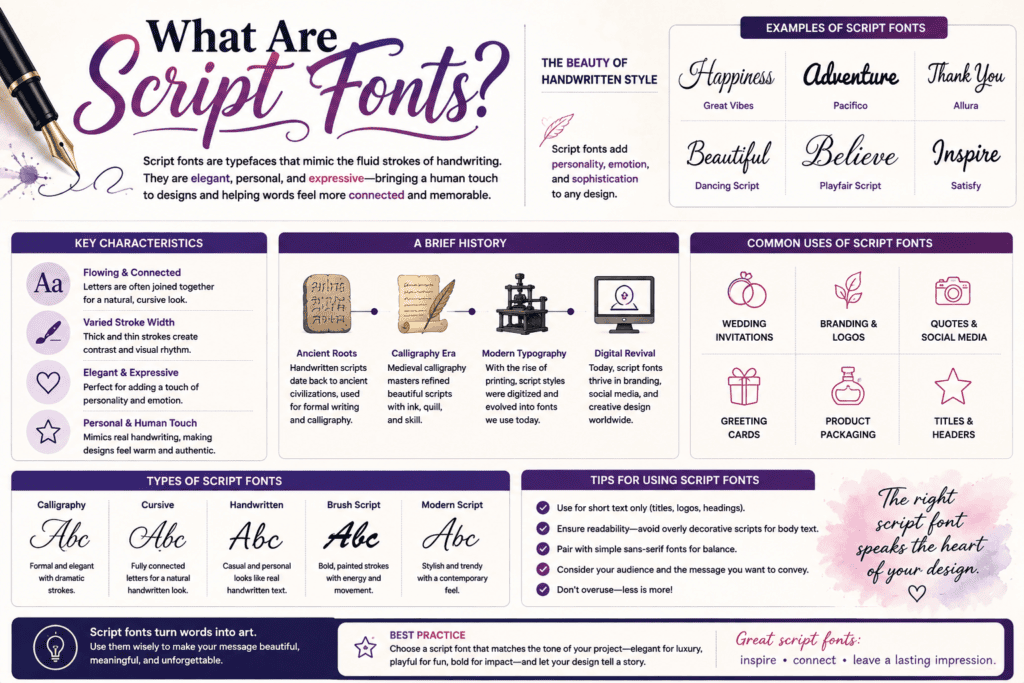
From practical design work, I find script fonts most convincing when flowing letterforms preserve a personal touch without sacrificing readability. Their handwriting character can feel elegant, playful, or deliberately expressive across modern branding identity systems.
Rather than treating them as decoration alone, I evaluate script typefaces through fluidity, accessibility, and context. Connected letterforms, decorative curls, and varying stroke widths create personality, while careful spacing keeps expressive typography usable in practice.
History of Script Fonts
Modern typefaces emerged from classical calligraphy, yet their roots lie in European manuscripts, chancery hand, and trade printing. In typographic practice, metal type revealed why joined forms required careful design and controlled spacing for clarity.
Technology later loosened those constraints: phototypesetting, then digital type, enabled overlap of characters, contextual ligature insertion, alternate characters, and expressive swashes. Today, Unicode, Google Fonts, and Adobe Fonts preserve evolution across print and web design.
Types/Classification Of Script Fonts
In practice, I classify script families by behavior rather than decoration: formal script fonts follow classical calligraphy, complex penmanship, and controlled ligatures, while casual scripts favor a handwritten feel, freer strokes, and approachable personality overall.
Second, useful classification examines construction: connected faces create visual flow through continuous joins, whereas unconnected designs preserve separate forms. Brush Script adds a lively font character; roundhand favors refinement, and display typeface categories prioritize impact.
Characteristics Of Script Fonts
Script fonts gain their warmth from a fluid stroke, varying connectedness, and smooth curves. In my design work, their thick-to-thin strokes create dynamic movement, while character combinations and ligatures add controlled individuality without sacrificing identity.
Unlike uniform type, script forms rely on exaggerated loops, distinctive glyphs, and subtle imperfections to suggest human authorship. In practice, I reserve them for stylized text blocks, since large chunks of text create readability challenges.
Pros And Cons Of Script Fonts
From practical design work, script fonts add emotional resonance, a human touch, and strong visual appeal. Their flowing appearance, graceful curves, and artistic flair give brand names a personalized touch and sophisticated appearance online.
Yet the strengths become weaknesses when overly ornate scripts, complex letterforms, or a cluttered look reduce clarity. Across screen sizes, they can be hard to read for users with visual impairments and may overpower design.
How To Pair Script Fonts Effectively
Begin with visual balance, not similarity: pair expressive writing fonts with restrained companions that create contrast. In my typography work, checking headlines beside main text reveals whether both faces complement each other without competing visually.
Next, test the pairing at various sizes and on different devices; adjust kerning until letters flow smoothly. I usually reserve intricate scripts for short phrases, which protects legibility, hierarchy, and a coherent composition across formats.
Tips For Using Script Fonts Effectively / Best Practices When Using Script Fonts
In practice, I reserve script fonts for headings, short phrases, or important words, then test legibility at smaller sizes. Clear visual hierarchy protects body text, improves accessibility, and leaves a strong impression without cluttering layouts.
Contrary to popular advice, one carefully chosen typeface usually outperforms multiple script fonts. Pair a formal script with a clean sans-serif font, maintain sufficient contrast, test fallback fonts, and iterate across email clients before publishing.
Where Are Script Fonts Typically Used
In client work, I reserve script lettering for luxury branding, certificates, social media graphics, and children’s books, where authentic hand-lettered styles add personality without forcing readers through elaborate flourishes or longer blocks of text unnecessarily.
Historically, signpainters favored shop frontages, while current teams use these faces for creative branding, digital illustrations, greeting cards, and personal branding. I find bigger size and a readable fallback font protect legibility across devices today.
Popular Script Fonts
In my design work, Lobster and Pacifico often suit friendly branding, while Bickham Script and Snell Roundhand create refined invitations. Great Vibes offers expressive elegance, but careful sizing prevents its flourishes from overpowering supporting text.
For contrasting moods, Brush Script MT feels practical and familiar; Edwardian Script signals ceremony, whereas Dancing Script adds movement. I usually reserve Zapfino for short display lines because its intricate forms demand space and restraint.
From accessibility audits, I’ve found script fonts can create low readability for readers with visual impairments, especially at smaller sizes. Reserve them for brief accents, pair them with clear fonts, and ensure legibility through testing.
Can I Use Multiple Script Fonts On The Same Website?
Yes, but in my design audits, a limited number works best: pair one expressive script with a readable font, preserve consistency, and test different sizes; competing styles often create a disjointed look and weaken hierarchy.